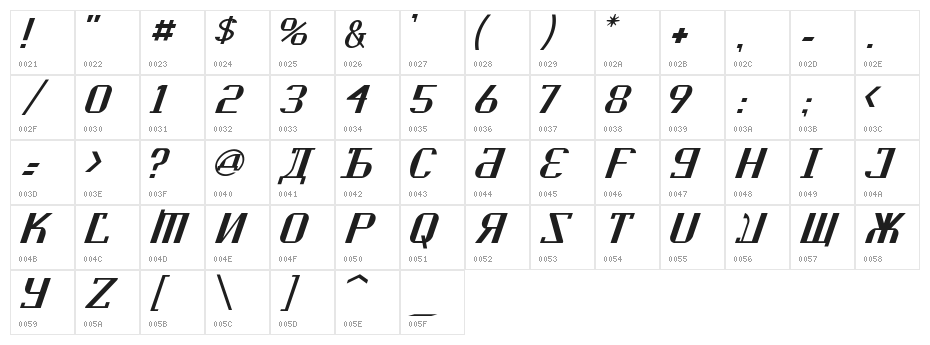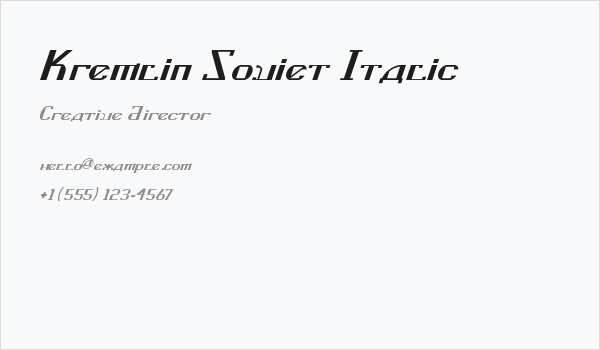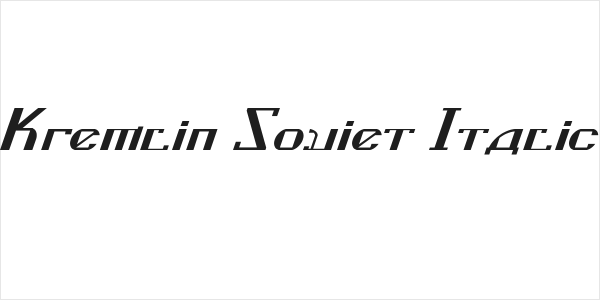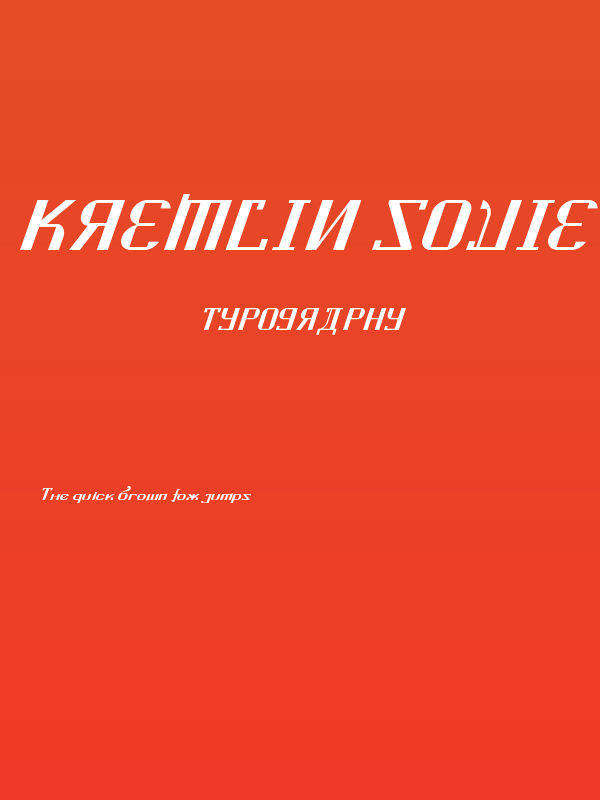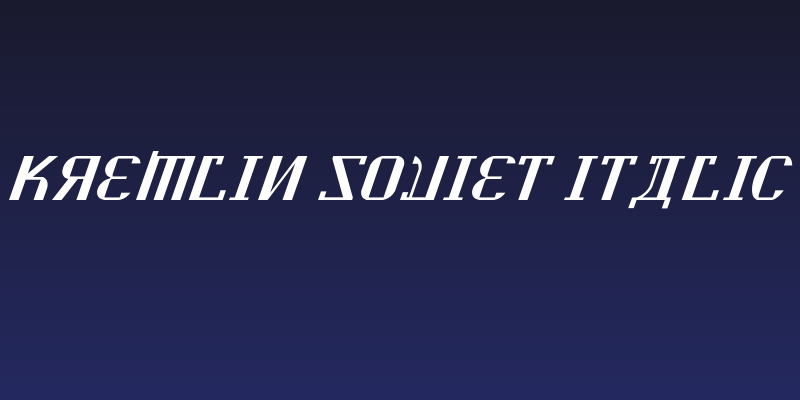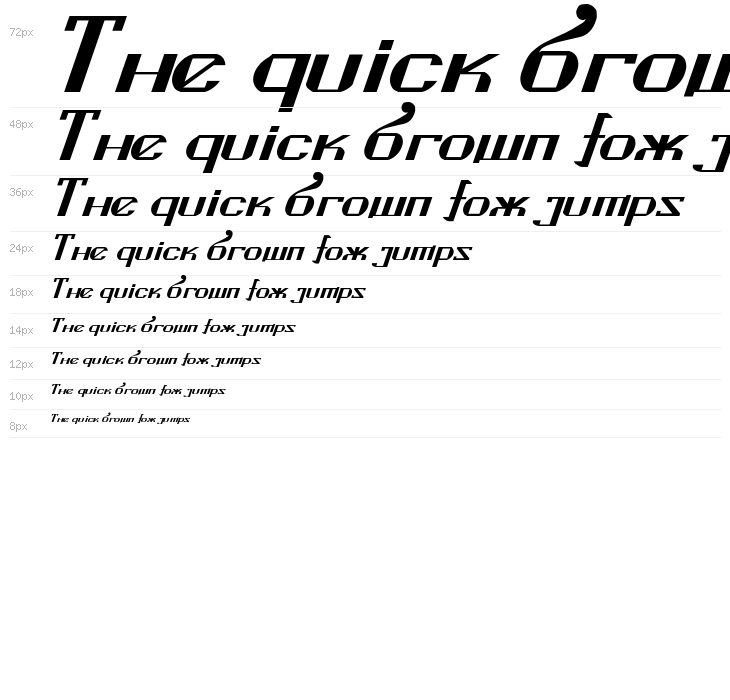
Kremlin Soviet Italic Font
Kremlin Soviet Italic Description
This font features a distinct italic style with a nod to Soviet-era design elements. The characters are angular and geometric, with sharp edges and a strong, authoritative presence. The uppercase letters are bold and commanding, while the lowercase letters maintain a consistent slant, enhancing the italicized effect. Numbers and special characters follow the same stylistic cues, ensuring uniformity across all glyphs. The overall design is reminiscent of historical propaganda posters, making it suitable for projects that require a bold, retro aesthetic.
| Proposed Projects | Ideal for retro-themed posters, branding for vintage products, or any project seeking a bold, historical aesthetic. |